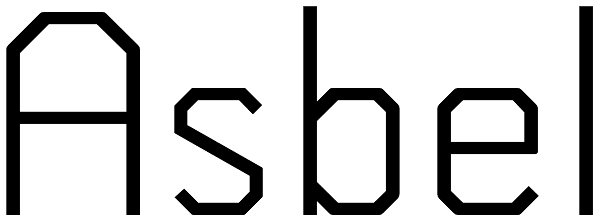
Asbel
Asbel is a simplistic, stylish, modern and rectangular san serif type font, and type family consisting of 9 fonts. The main purpose of creating this font was to be as simple as possible. As a result, Asbel is good to use for titling, poster...